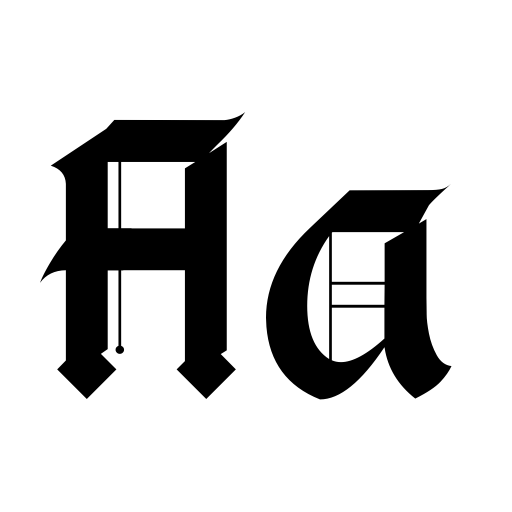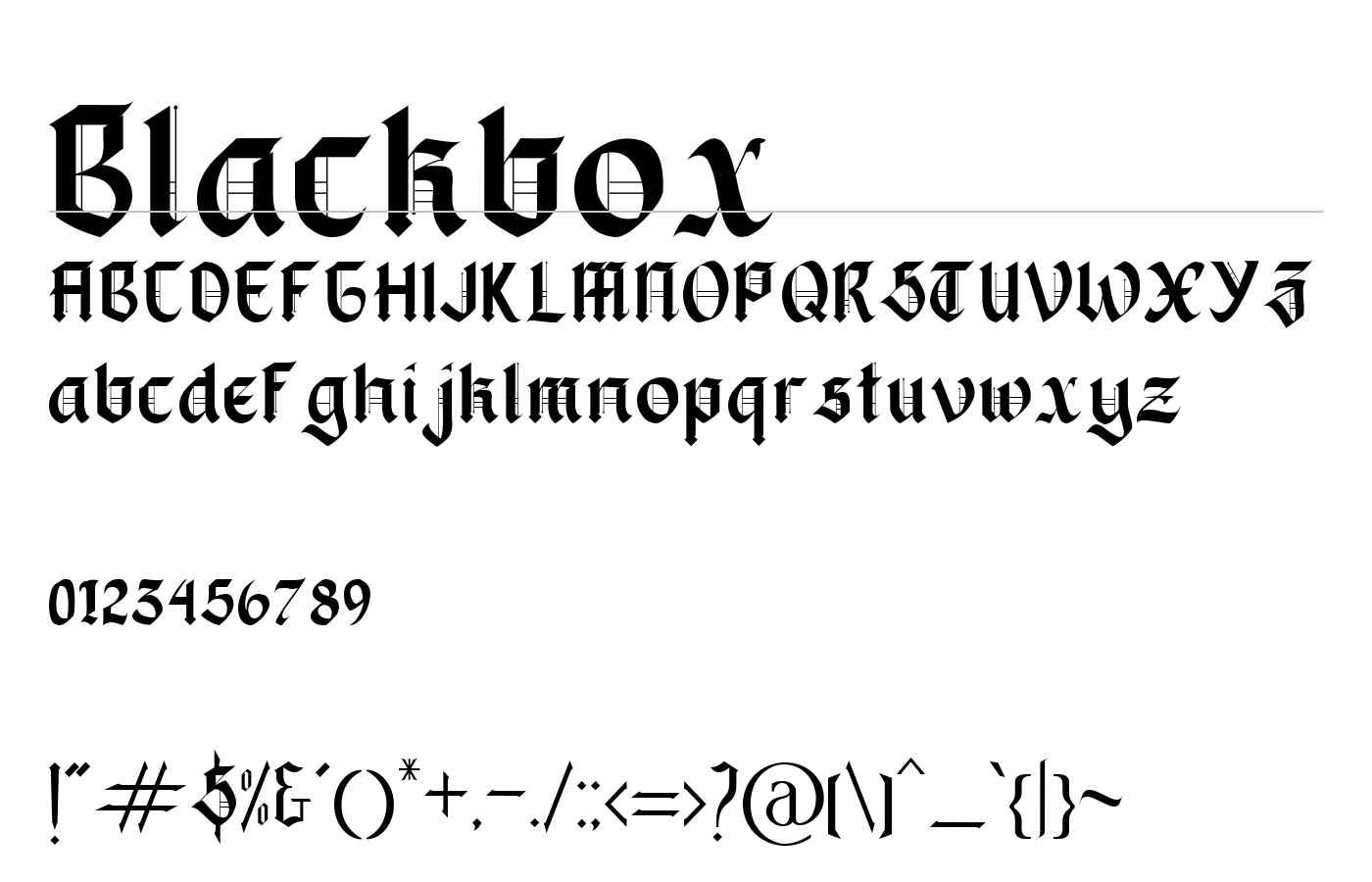
Blackbox Font is a bold, blackletter-style typeface with strong Gothic influences, featuring sharp, angular strokes and high contrast between thick and thin lines. It conveys a historic, dramatic, and somewhat edgy feel, making it ideal for headlines, logos, and designs needing a vintage or medieval flair with a modern touch. Its distinctive letterforms and intricate details give projects a unique and powerful presence, especially in branding, posters, and editorial uses where impact and style are key.
Blackbox Font
About Blackbox Font